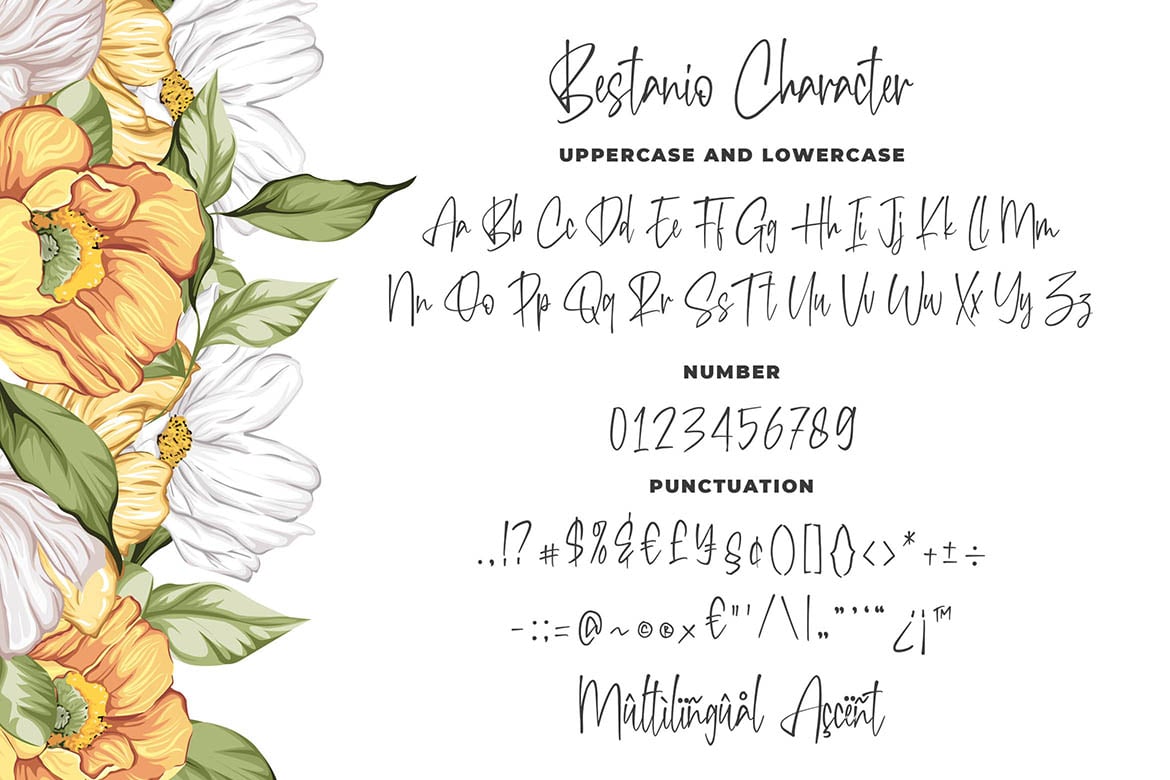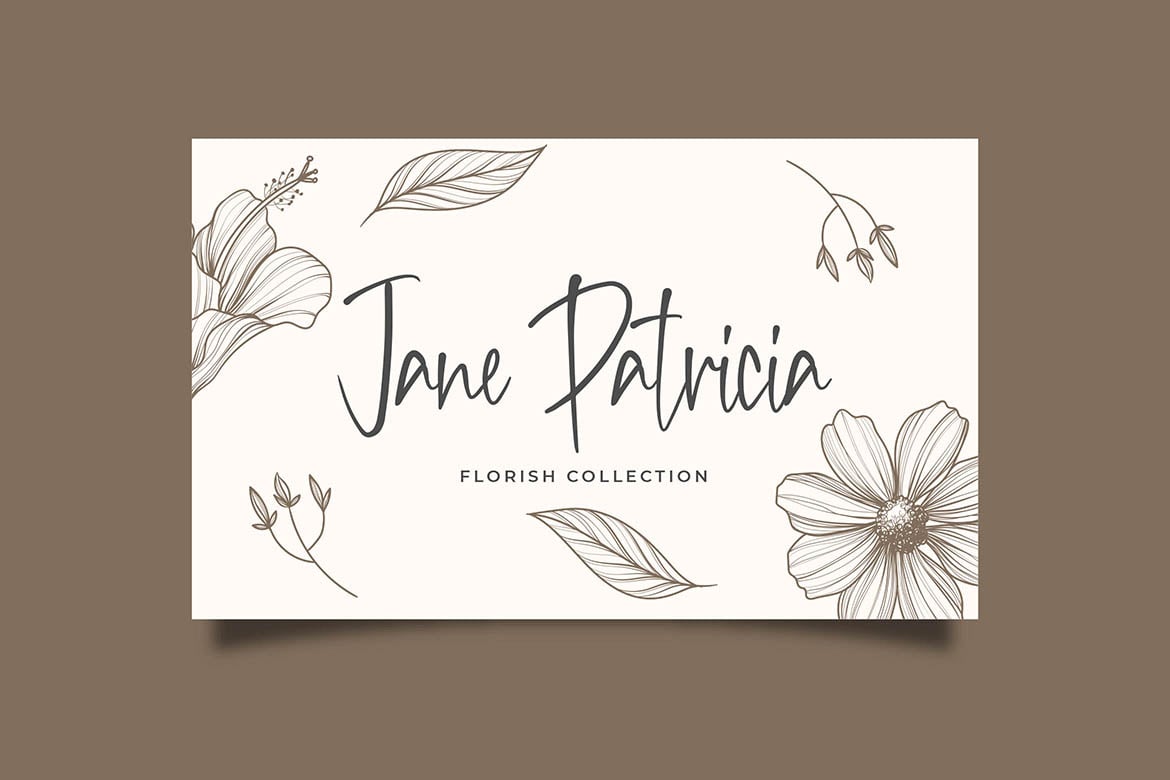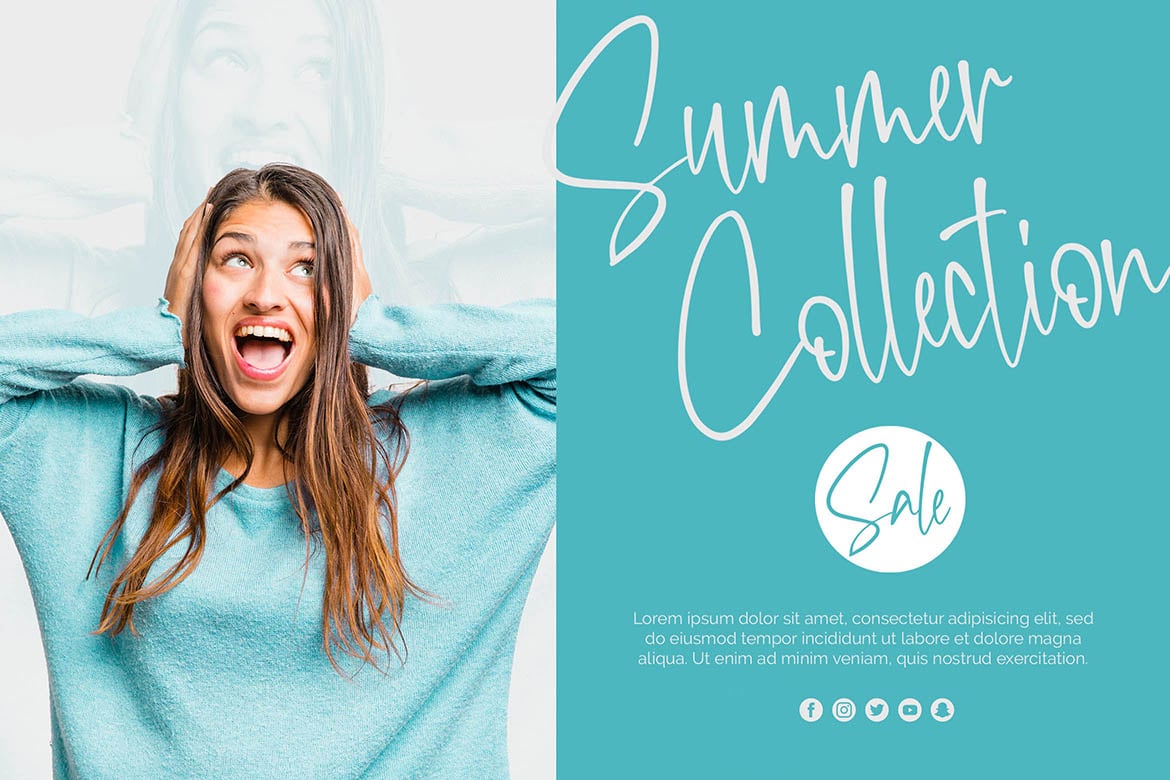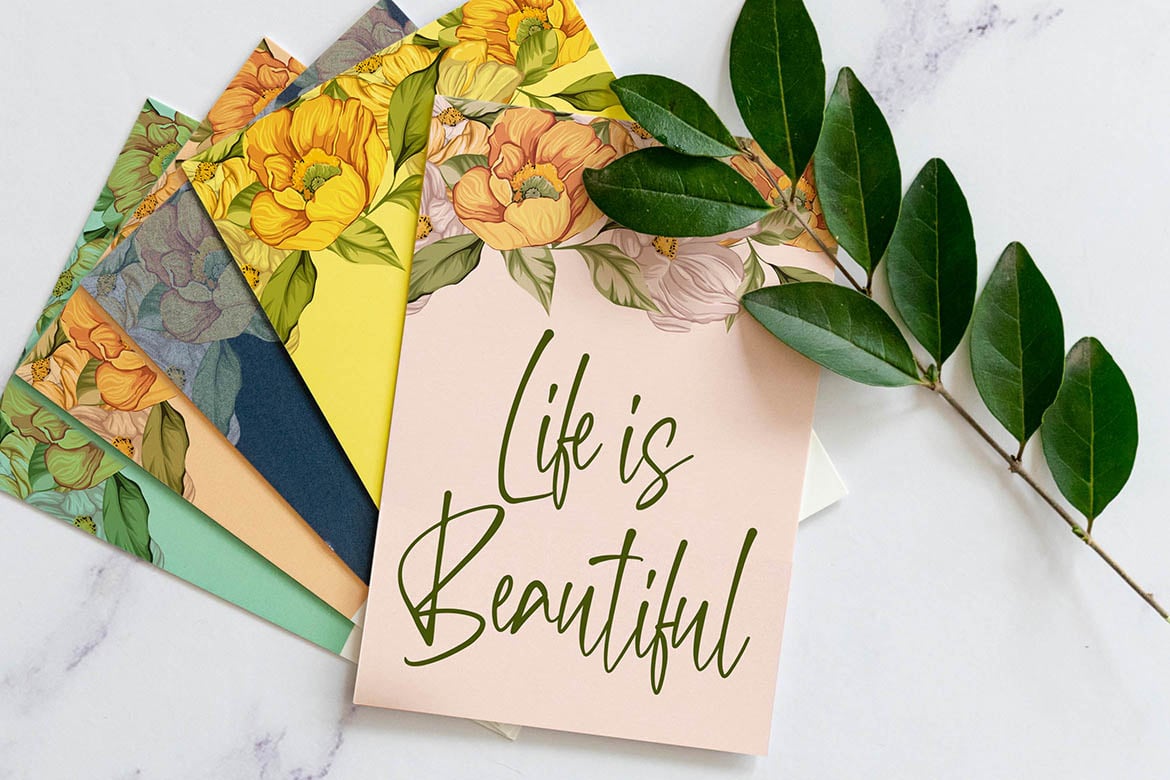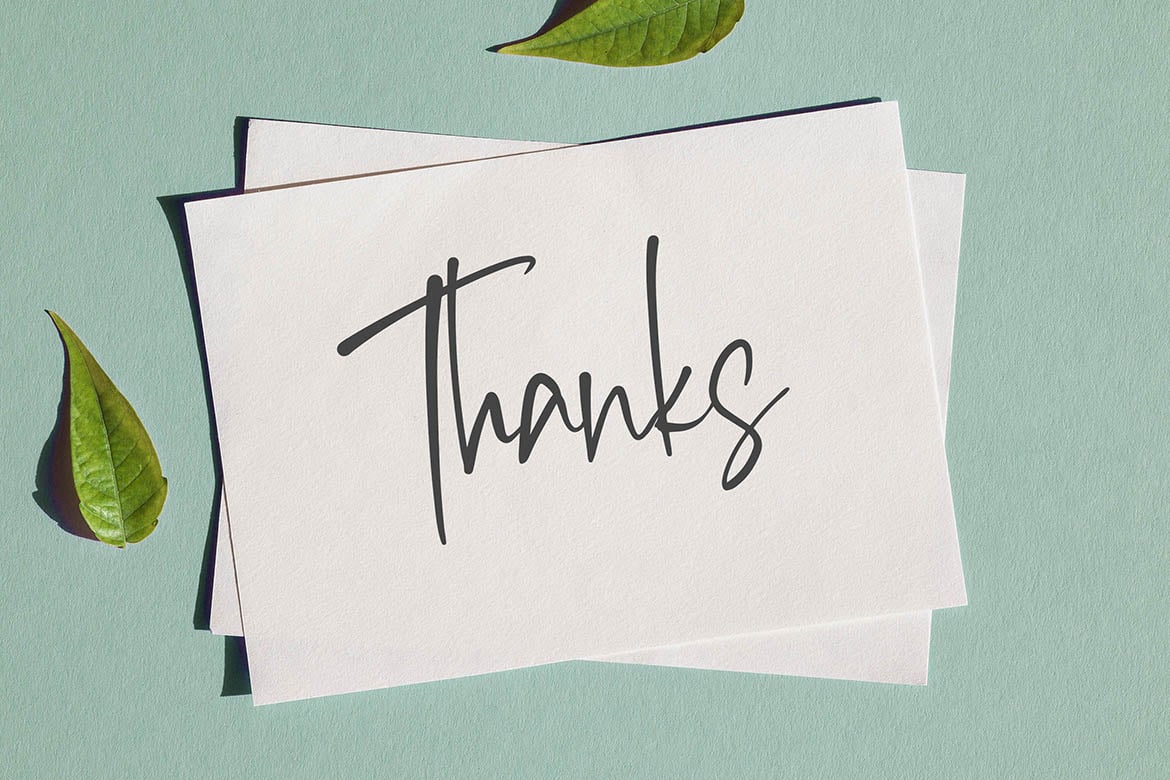
Bestanio – Sexy Signature Font
Introducing of our new product the name is Bestanio Sexy Signature Font. Bestanio inspired by Beauty signature style this font is a fun theme very good for signature, poster, fashion, wedding, branding etc
MULTILINGUAL ACCENT :
ŽžŠŒšŸÀÁÂÃÄÅÆÇÈÉÊËÌÍÎÏÐŁÑÒÓÔÕÖØÙÚÛÜÝßàáâãäåæçèéêëìíîïłñòóôõöøùúûüýÿ